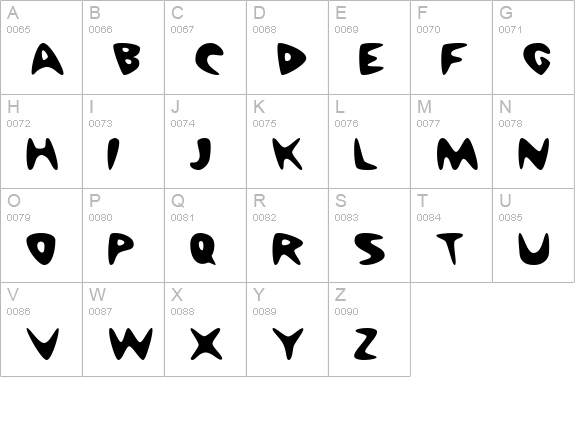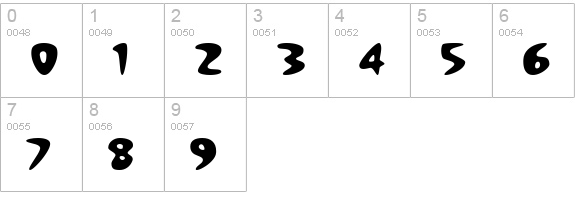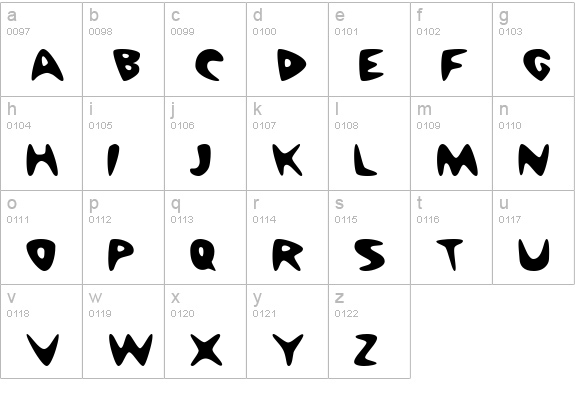
Cheap Motel Font Details
Cheap Motel font is a quirky and playful typeface that captures the retro charm of roadside motels from the 1950s. With its bold and irregular letter shapes, this font adds a touch of nostalgia to any design project. The font is perfect for creating eye-catching posters, signage, or branding materials that stand out from the crowd. What sets Cheap Motel font apart is that it is completely free to download at FontsMarket.com. This means you can easily add this unique font to your collection without breaking the bank. Whether you're a designer looking to add a fun twist to your work or a hobbyist wanting to experiment with different typefaces, Cheap Motel font is a must-have in your toolbox. Download it today and let your creativity run wild!